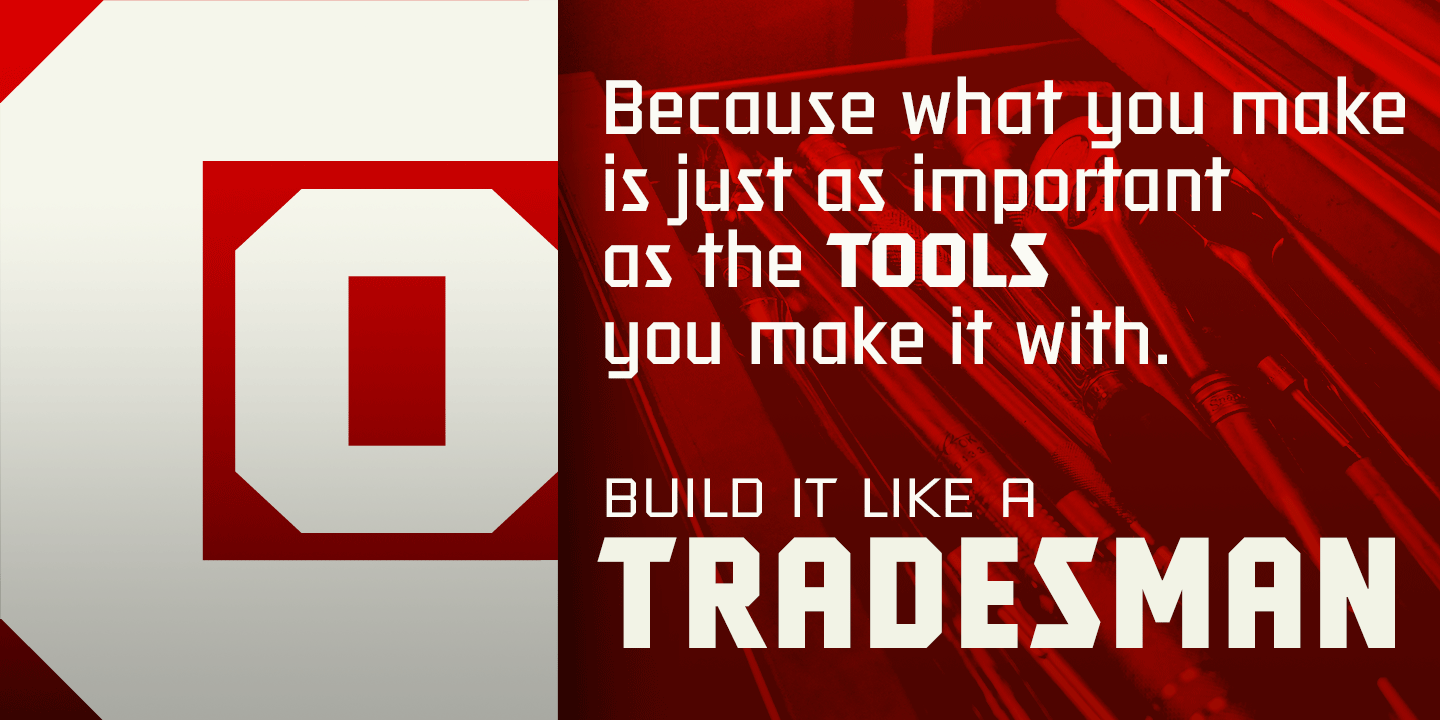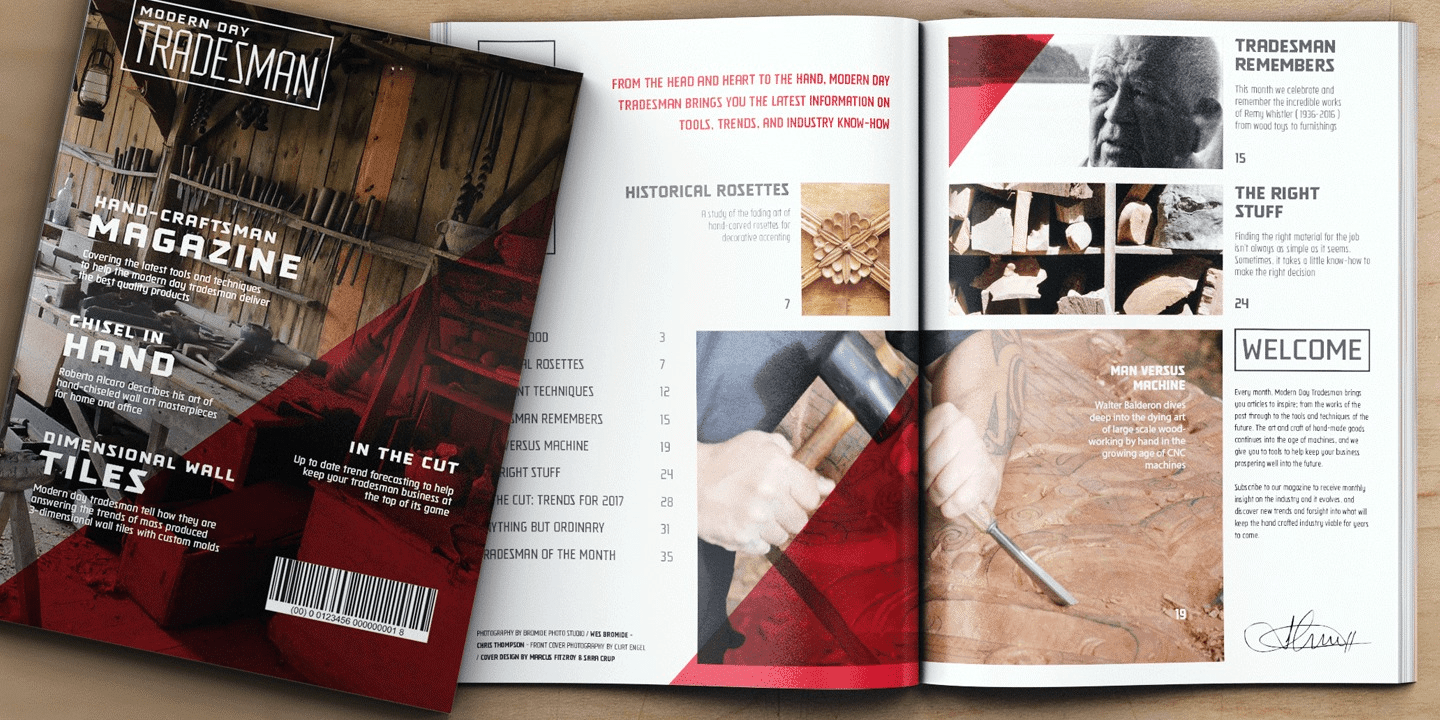
Tradesman
About Tradesman
Rough-hewn industrial geometric typefaces have been used and admired from early wood types through the digital age of Machine and beyond, but they have lacked an expansive enough family to become a true workhorse. The Tradesman family finds its origin…